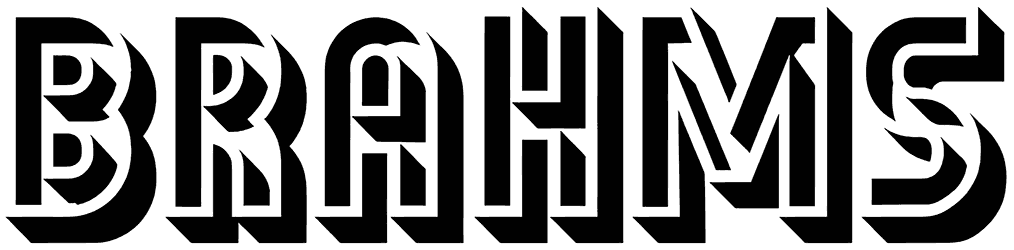
Brahms Font
Provide a modern and stunning visual with this 3D font for your project to hook a lot of visitors. The Brahms font has a humble and technical visual that could be perfect for many layouts, such as an automotive advertisement banner. This outline font doesn’t support lowercase letters and most punctuation marks, but its two versions will make up for this lack.
“Brahms” comes in Regular and Hollow variant!